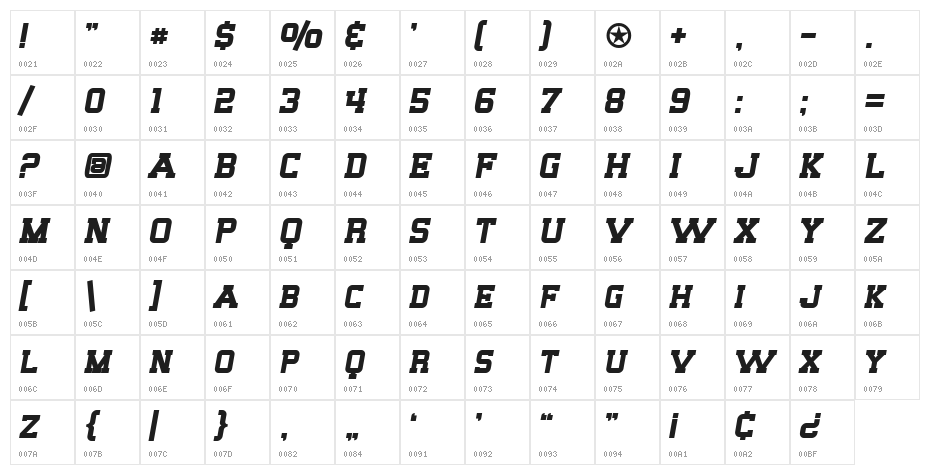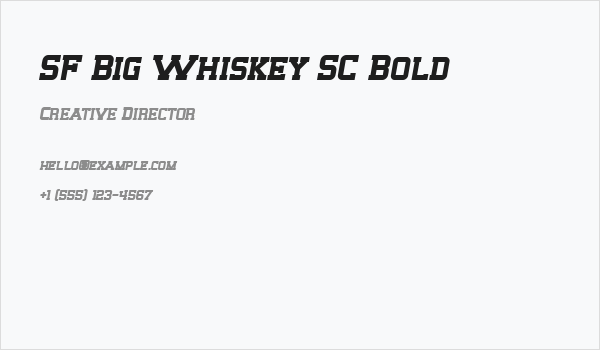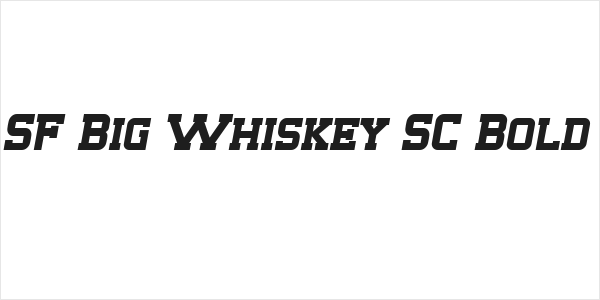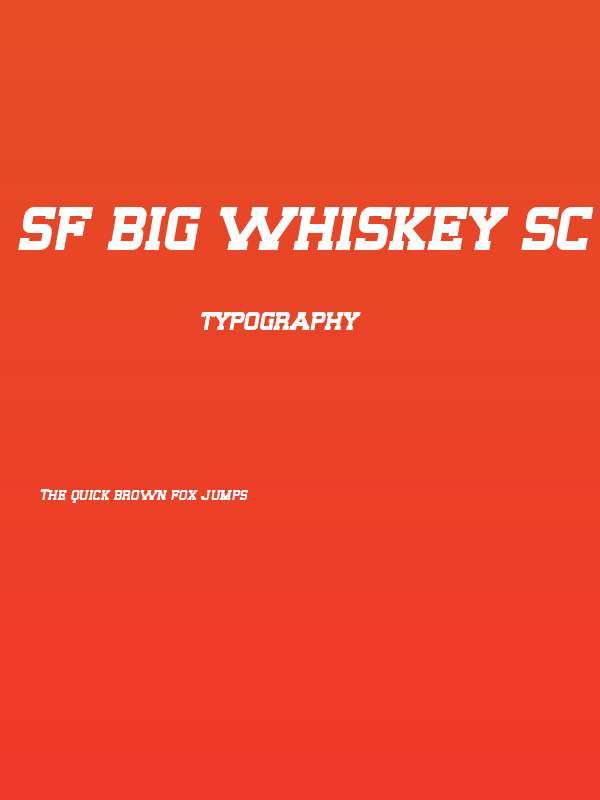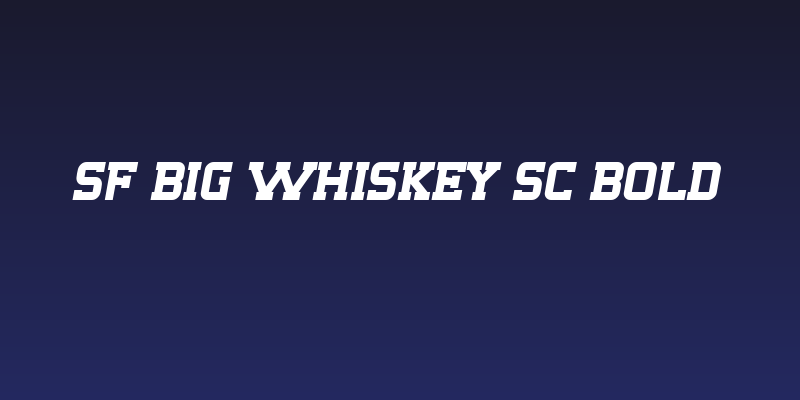
SF Big Whiskey SC Bold Font
SF Big Whiskey SC Bold Description
This font exhibits a bold and robust style with a strong presence. The characters are designed with a slight slant, giving them a dynamic and energetic feel. The strokes are thick and consistent, providing a sense of stability and strength. The serifs are pronounced, adding a touch of classic elegance to the overall design. The uppercase letters are particularly striking, with a commanding appearance that makes them ideal for attention-grabbing headlines. The numerals and special characters maintain the same boldness, ensuring uniformity across all text elements.
| Proposed Projects | Ideal for branding, posters, and headlines that require a bold and commanding typeface. |